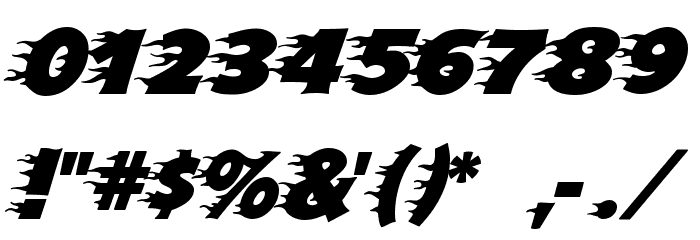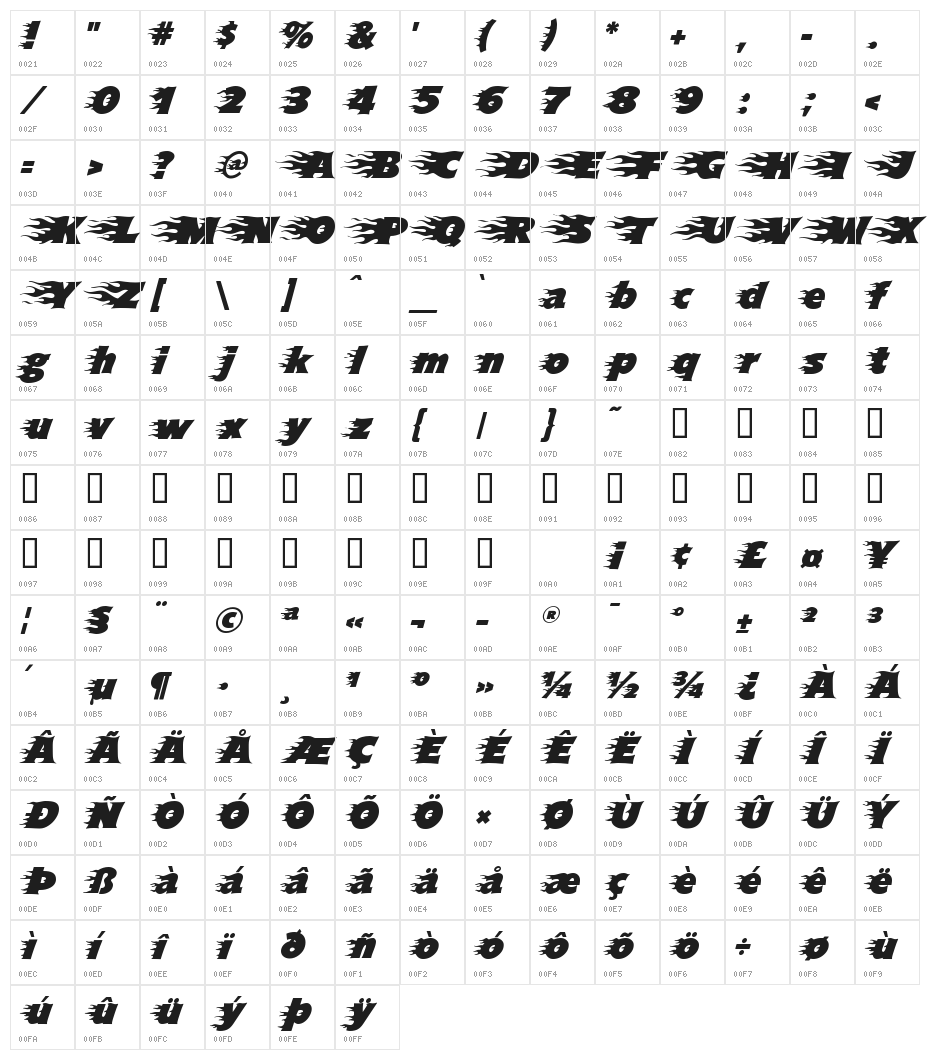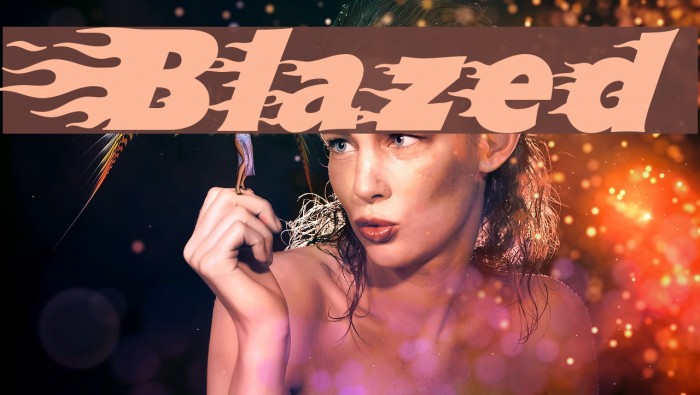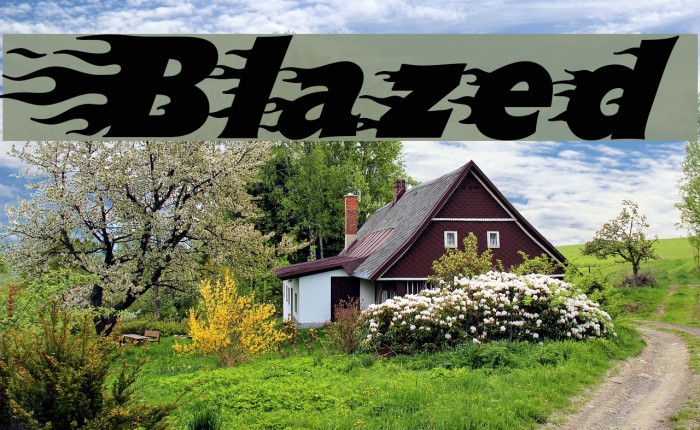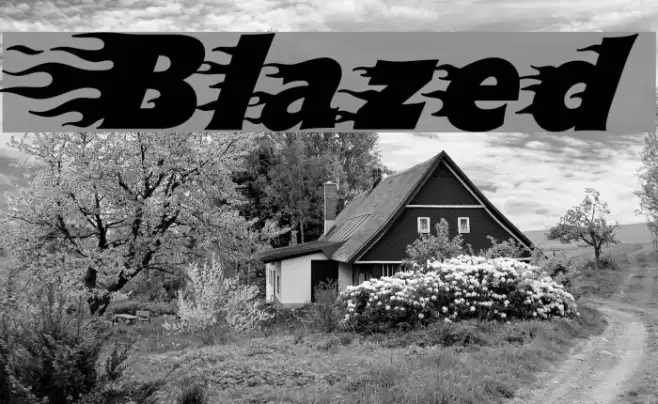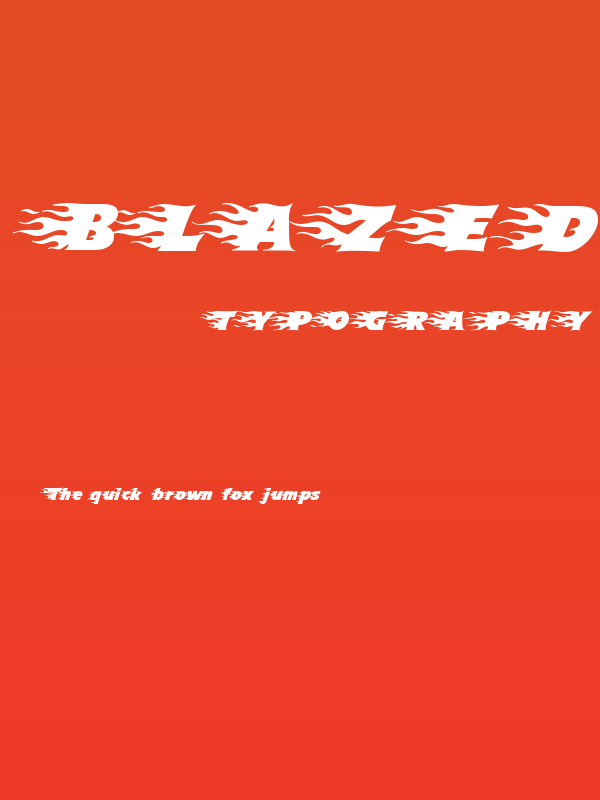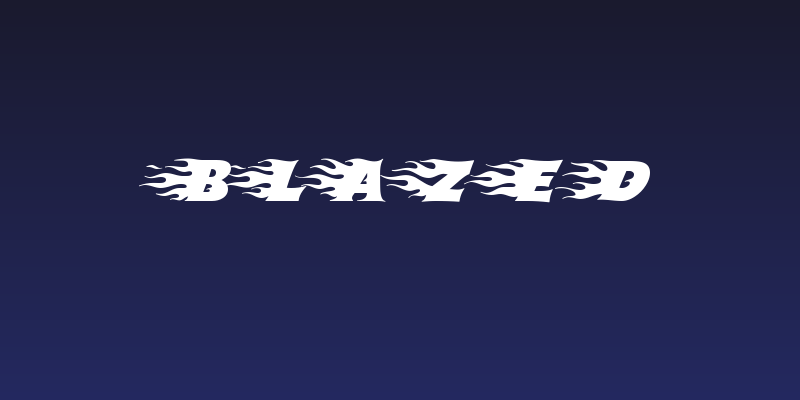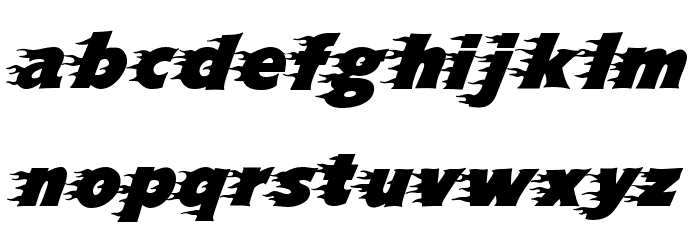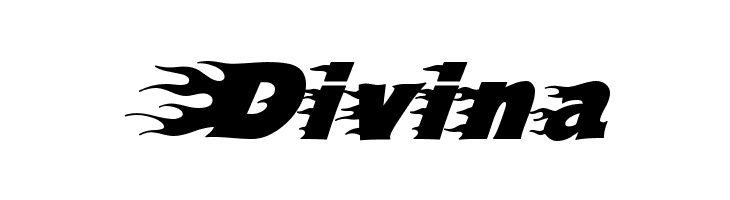
Blazed Font
Blazed Description
This font features a dynamic and energetic style, characterized by its bold, italicized letters with flame-like extensions that give the impression of speed and motion. The uppercase and lowercase letters, as well as numbers and special characters, all share this fiery aesthetic, making it stand out with a sense of urgency and excitement. The strokes are thick, contributing to a bold appearance, while the italic slant adds a sense of forward movement. The character spacing is relatively tight, enhancing the compact and impactful look of the text. This font is ideal for projects that require a dramatic and eye-catching design.
| Proposed Projects | Ideal for sports branding, event posters, automotive advertisements, and any design needing a dynamic and fiery touch. |